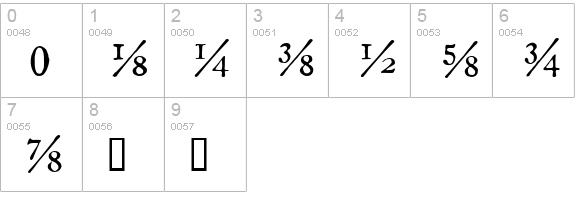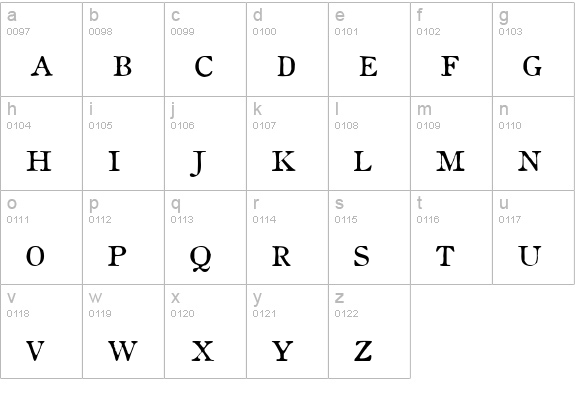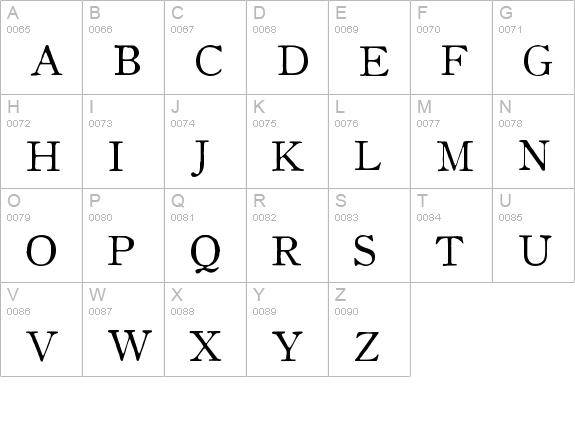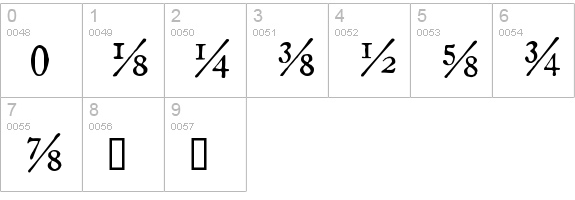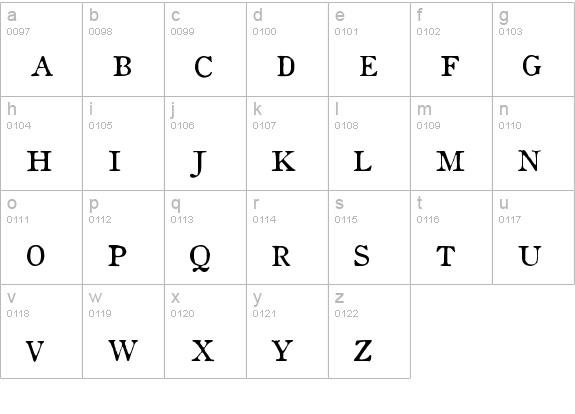
Oldstyle Small Caps HPLHS Font Details
The Oldstyle Small Caps HPLHS font is a classic and elegant typeface that combines traditional design elements with a modern twist. Its small caps style gives it a sophisticated and refined look, making it ideal for a wide range of projects, from invitations to branding and more. The timeless appeal of this font makes it a versatile choice for both print and digital media. Best of all, the Oldstyle Small Caps HPLHS font is available for free download at FontsMarket.com. This means you can easily access and use this high-quality font in your designs without any cost or restrictions. Don't miss out on the opportunity to enhance your projects with the beauty and charm of the Oldstyle Small Caps HPLHS font – download it today and elevate your designs to the next level.